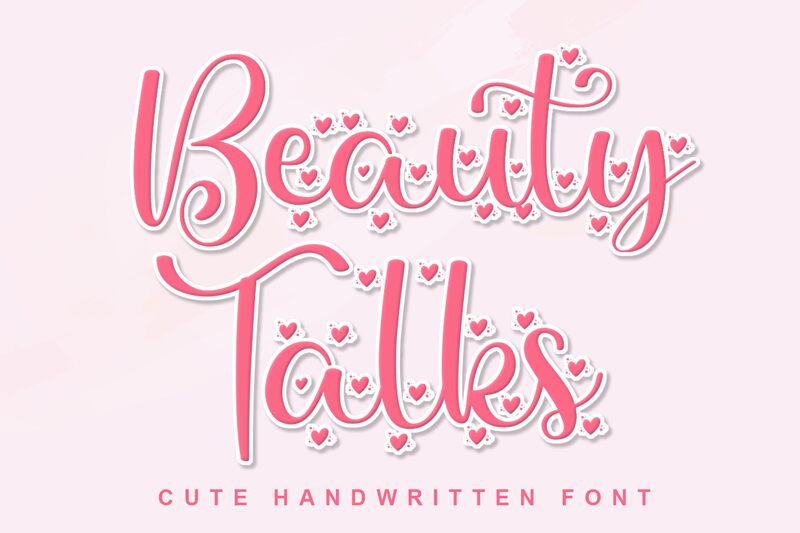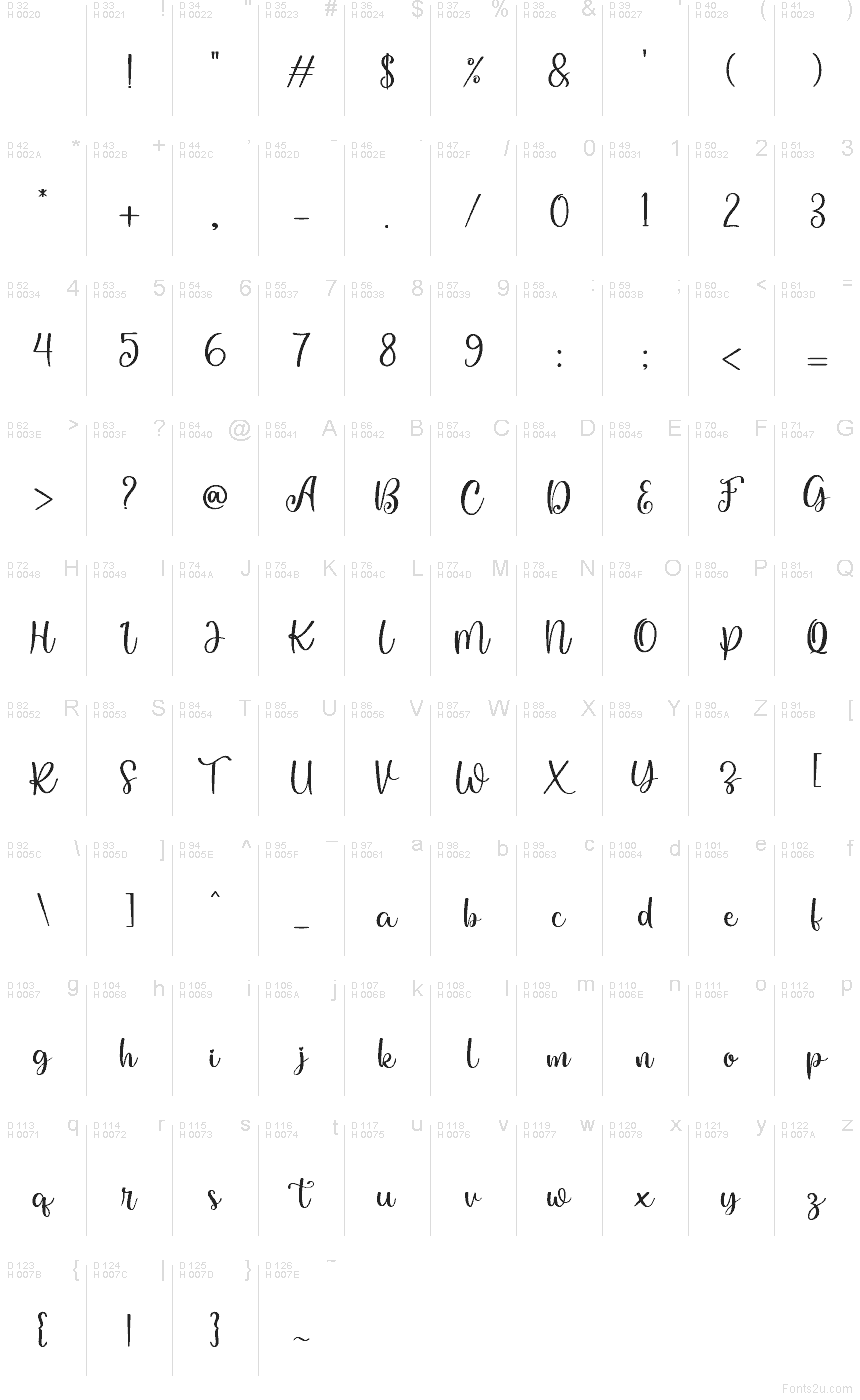
Beauty Talk
Beauty Talk font by Niyos is a free valentine script typeface with a breezy, handwritten charm. Its flowing curves, playful loops, and slightly bouncy baseline feel like ink brushed onto a love note, giving every word a soft, romantic warmth. Letters connect smoothly without getting fussy, so even longer phrases stay legible while still looking lush and decorative.
Using Beauty Talk, your designs instantly pick up that handwritten, heart-on-sleeve energy that suits Valentine’s cards, wedding invitations, save-the-dates, gift tags, social media quotes, and boutique branding. This free font shines when set large, letting the swirls and curls breathe; pair it with a clean sans serif for body text to keep things sweet but readable.